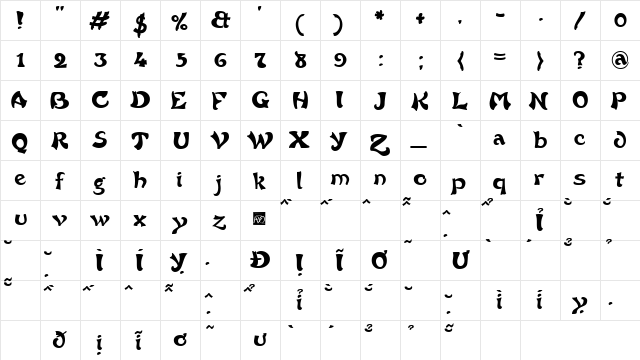
VfFree30 Regular
Design Context for VfFree30 Typeface
VfFree30 is a composed and adaptable typeface that performs quietly and consistently across a wide range of design contexts.